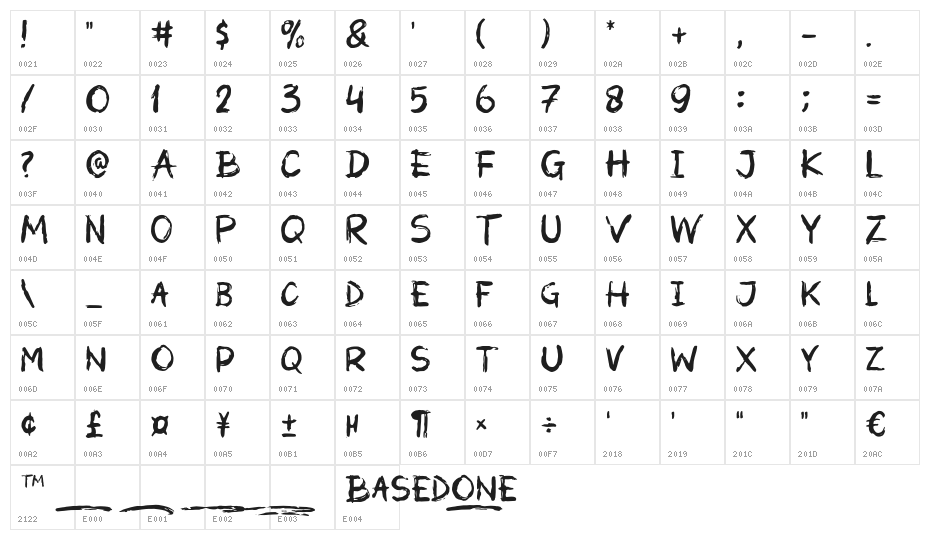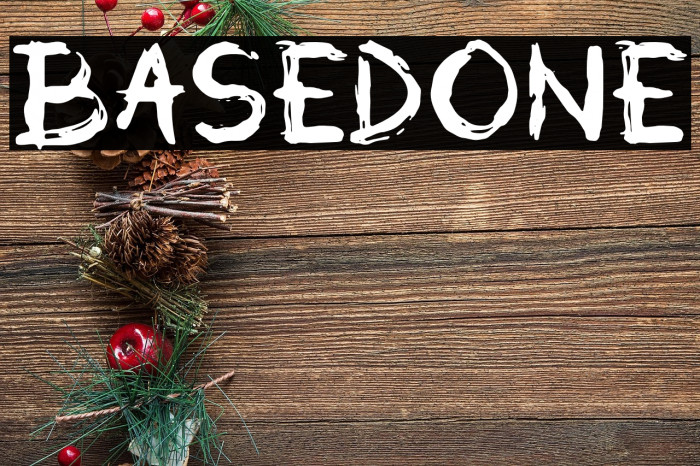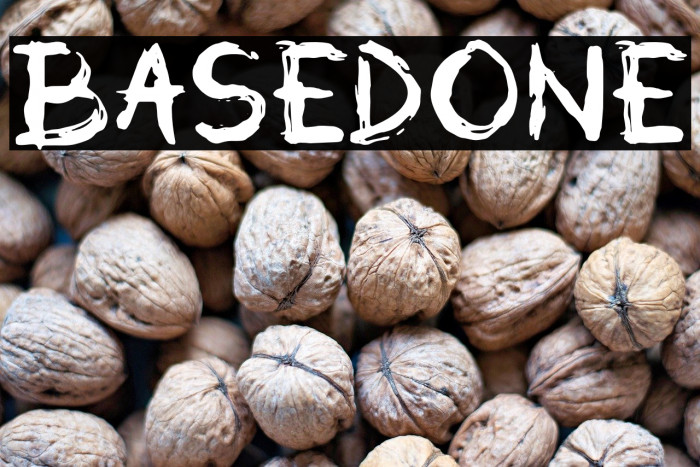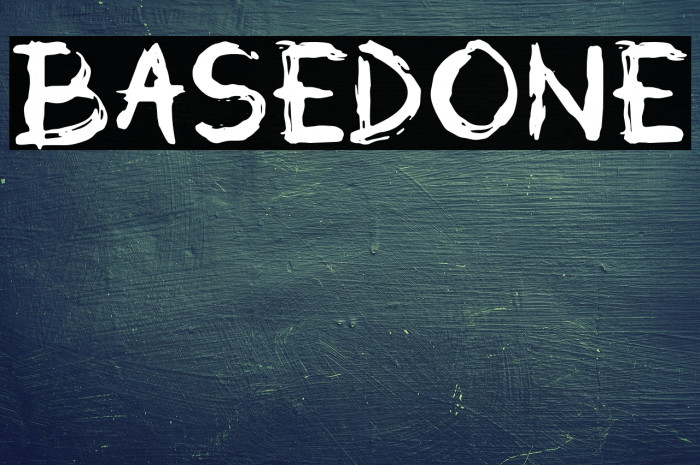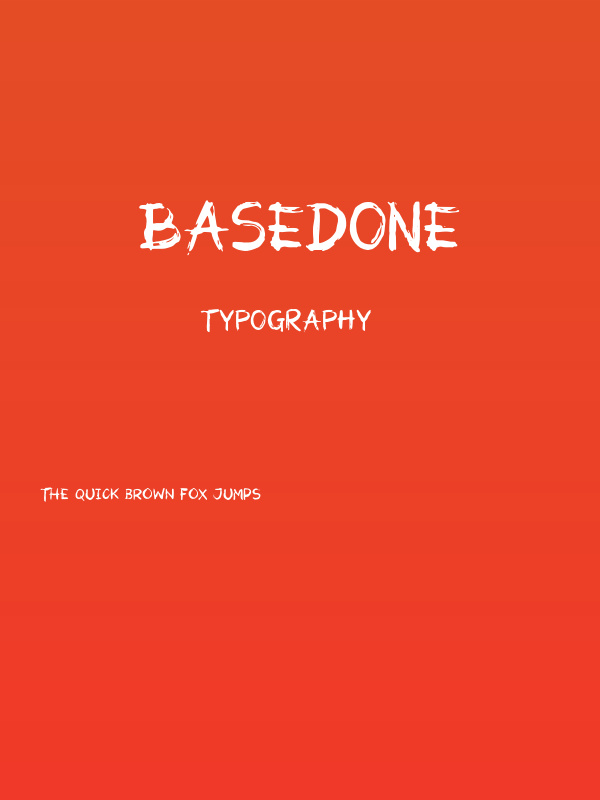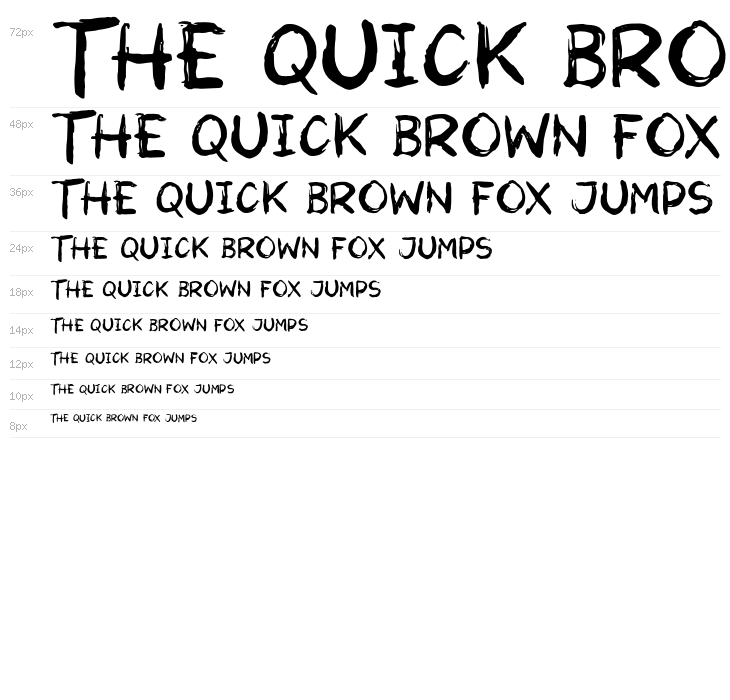
Basedone Font
Basedone Description
This font features a bold, expressive style reminiscent of brush strokes, giving it a dynamic and energetic appearance. The characters are uneven and irregular, adding a sense of movement and spontaneity. The strokes are thick and vary in width, creating a high contrast between the thick and thin parts of each letter. This font has a raw, hand-drawn quality that makes it stand out, ideal for projects that require a personal touch or artistic flair. The uppercase and lowercase letters maintain a consistent style, while the numbers and special characters complement the overall design.